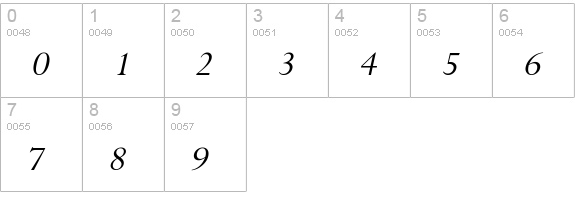
Rapid Italic is a distinctive, italic variant in the Rapid typeface family \xE2\x80\x94 well suited to design and typography projects.
Rapid Italic is a sleek and modern font that effortlessly combines elegance with a touch of speed. Its italicized design adds a dynamic and energetic feel to any project, making it perfect for capturing attention and leaving a lasting impression. This font's fluid and curvaceous letterforms exude a sense of movement, adding a sense of urgency and excitement to your designs. With its bold and confident strokes, Rapid Italic is versatile enough to be used in various creative endeavors, including branding, advertising, packaging, and more. Whether you're designing a logo for a cutting-edge tech startup or creating eye-catching headlines for a fashion magazine, this font will surely make your text stand out. One of the most appealing aspects of Rapid Italic is that it is freely available to download at FontsMarket.com. This means that you can easily access and use this font without any barriers. Whether you're a professional designer or a hobbyist, you can take advantage of this font's unique style and incorporate it into your projects, adding a touch of sophistication and flair. Rapid Italic's versatility extends beyond its captivating design. Its readability ensures that your message is conveyed effortlessly, even in small sizes or on screens. The carefully crafted letterforms ensure that each character is distinct and legible, making it a reliable choice for various applications. So, if you're looking to add a dash of excitement and elegance to your designs, look no further than Rapid Italic. Download it for free at FontsMarket.com and unleash your creativity with this captivating font.